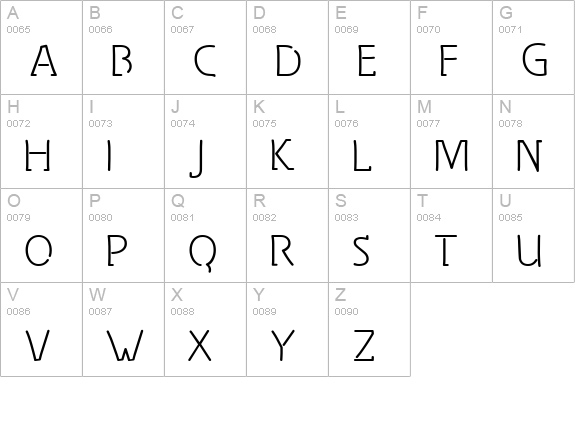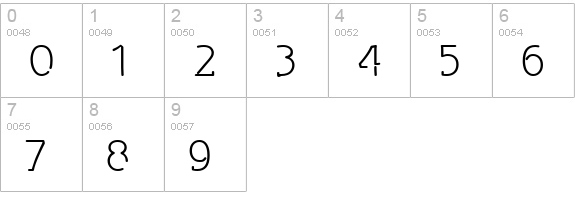
Spongy Thinsville Font Details
Spongy Thinsville font is a delightful typeface that captures the essence of playful and whimsical design. Its unique combination of rounded edges and thin strokes creates a soft and bouncy appearance, reminiscent of a sponge-like texture. This font is perfect for adding a touch of lightheartedness and charm to any project. With its versatility and legibility, Spongy Thinsville font can be used for a wide range of design purposes. Whether you are creating a logo, branding materials, invitations, or social media graphics, this font will bring a cheerful and friendly vibe to your work. One of the best features of Spongy Thinsville font is that it is freely available to download at FontsMarket.com. This means you can easily access and use this delightful typeface without any cost. Whether you are a professional designer or an enthusiastic hobbyist, the availability of this font for free allows you to explore its creative possibilities without any limitations. The characters of Spongy Thinsville font are carefully crafted to ensure smooth readability and visual harmony. Each letter is designed with precision, maintaining a consistent weight and spacing throughout the entire set. This attention to detail enhances the overall cohesiveness of your design, making it visually appealing and engaging to your audience. The playful nature of Spongy Thinsville font is further accentuated by its wide range of glyphs and ligatures. These additional characters offer creative opportunities for customizing your designs, allowing you to add a personal touch and create a truly unique look. Whether you are designing for print or digital media, Spongy Thinsville font is a versatile choice that will instantly add a touch of whimsy to your project. Its free availability at FontsMarket.com makes it incredibly accessible, allowing you to explore and experiment with this delightful typeface without any financial constraints. So go ahead, download Spongy Thinsville font and bring a vibrant and playful energy to your designs.